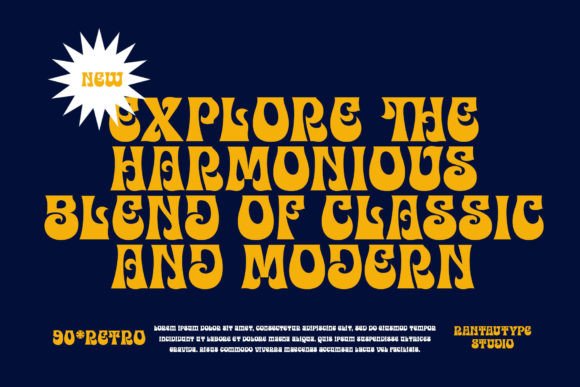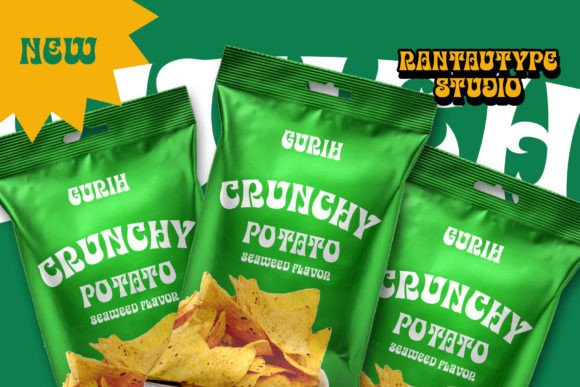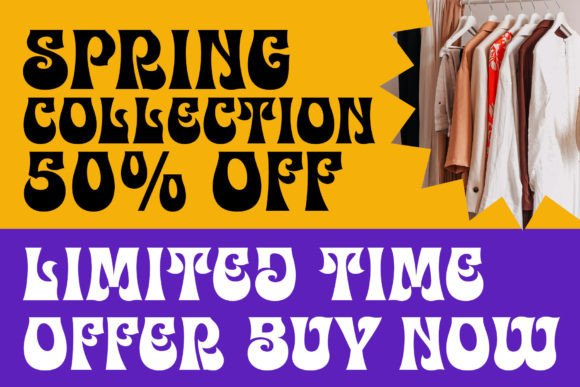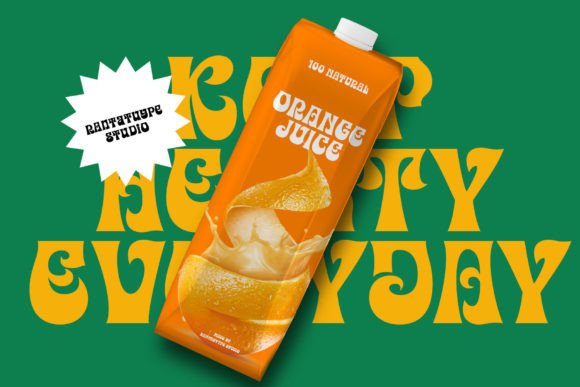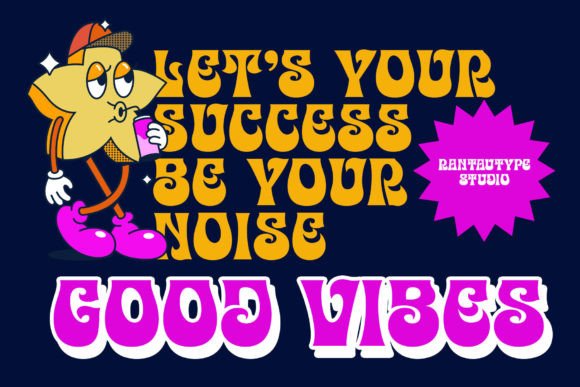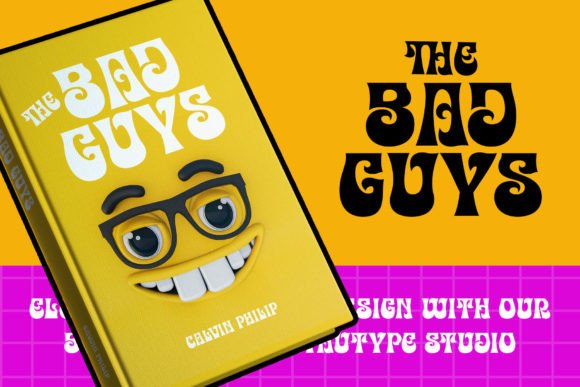
Introduction to Easy Bond Font
Have you ever stared at a blank canvas, struggling to find the perfect font to bring your creative project to life? It’s a familiar feeling for many designers, but what if I told you there’s a font that can change that? Say hello to the Easy Bond Font, a versatile and playful serif display font that’s about to become your new best friend.
Whether you’re working on a logo, title, or cover, the Easy Bond Font is the perfect design resource to give your project a modern and chic touch. Its high quality and wide language support make it a valuable addition to any designer’s toolkit. And the best part? It’s available for free download, so you can start experimenting with it right away.
With its transparent background and extensive character set, the Easy Bond Font is a game-changer for designers looking to elevate their work. So why settle for an ordinary font when you can have an extraordinary one? Let’s dive into the world of Easy Bond Font and discover its secrets.
Key Features of Easy Bond Font
- High-quality design: The font features a unique, elegant design that is perfect for a variety of applications, from posters to business cards.
- Transparent background: The font has a transparent background, allowing designers to easily combine it with other design elements.
- Size and resolution: The font is available in 1 style and 1 weight, with a font size range of 12-72 points, and a resolution of 300 DPI.
- Unique characteristics: The Easy Bond Font features a clean, modern design with a subtle flair, making it an excellent choice for designers looking for a unique look.
- Perfect for creative projects: The Easy Bond Font is ideal for designers working on creative projects, such as posters, flyers, and brochures, where a high-quality font is essential.
Honest Review: Easy Bond Font
I recently had the chance to work with the Easy Bond Font, and I have to say, it’s been a game-changer for my creative projects. This font is perfect for anyone looking for a high-quality design resource that’s easy to use.
What works well: ✨ The Easy Bond Font is incredibly versatile, making it perfect for a wide range of creative projects. The font is also available as a free download, which is a huge plus for designers on a budget. The transparent background is also a great feature, allowing for easy layering and manipulation in design software.
Here are some of the key features I love about the Easy Bond Font:
- High-quality design with crisp lines and clear typography
- Transparent background for easy layering and manipulation
However, there are a few limitations to consider: ⚠️ The font may not be suitable for very large-scale projects, as it can become pixelated at high resolutions. Additionally, the font may not be compatible with all design software.
Overall, I’m really impressed with the Easy Bond Font. It’s a high-quality design resource that’s perfect for a wide range of creative projects. With its versatility, free download option, and transparent background, it’s a must-have for any designer looking to elevate their work.
Introduction to Easy Bond Font
Easy Bond Font is a high-quality design resource that offers a free download for creative projects. This versatile font is perfect for various applications, including graphics, logos, and text-based designs. One of its key features is the transparent background, making it easy to integrate into your design.
Can I use the Easy Bond Font with a transparent background?
Yes, the Easy Bond Font has a transparent background, making it perfect for designs that require a clean and minimalist look. You can use the font with a transparent background in various design applications, including Adobe Illustrator, Photoshop, and more. Simply select the font and adjust the background settings to achieve the desired look.